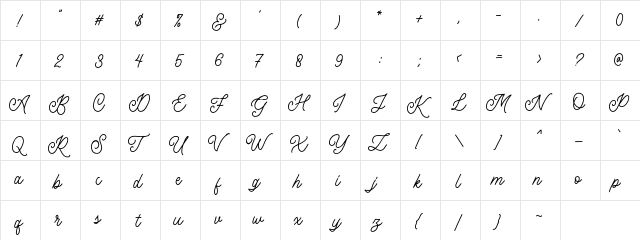
Headley Script DEMO Regular
| Foundry | Sarid Ezra |
| Designer | Sarid Ezra |
Design Context for Headley Script DEMO Typeface
Headley Script DEMO brings a calligraphic fluidity to the page — its connecting strokes and expressive curves give it an unmistakably human quality.
Font Pairing: Combine Headley Script DEMO with a simple geometric sans for maximum contrast — the tension between flowing curves and clean structure is a classic typographic pairing.
Pro Tip: Pair Headley Script DEMO with a clean sans-serif for supporting text. The contrast between fluid script and geometric structure creates an elegant typographic hierarchy.